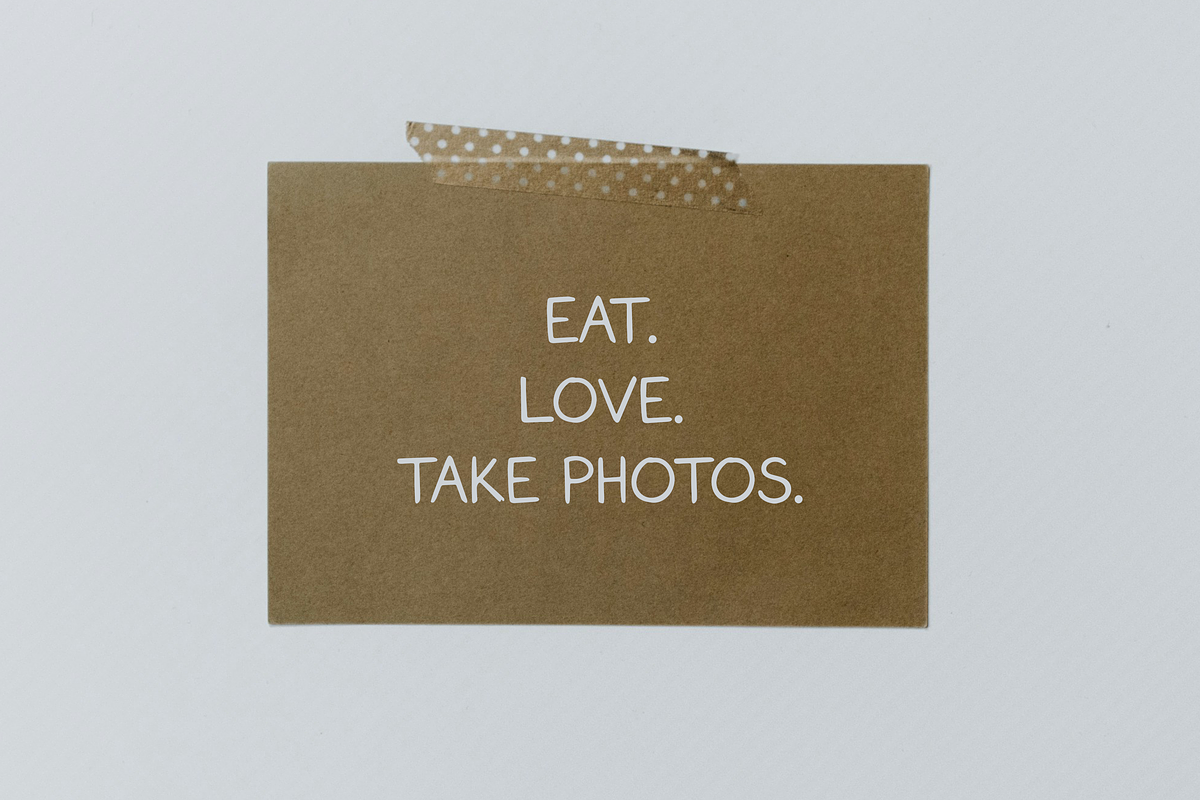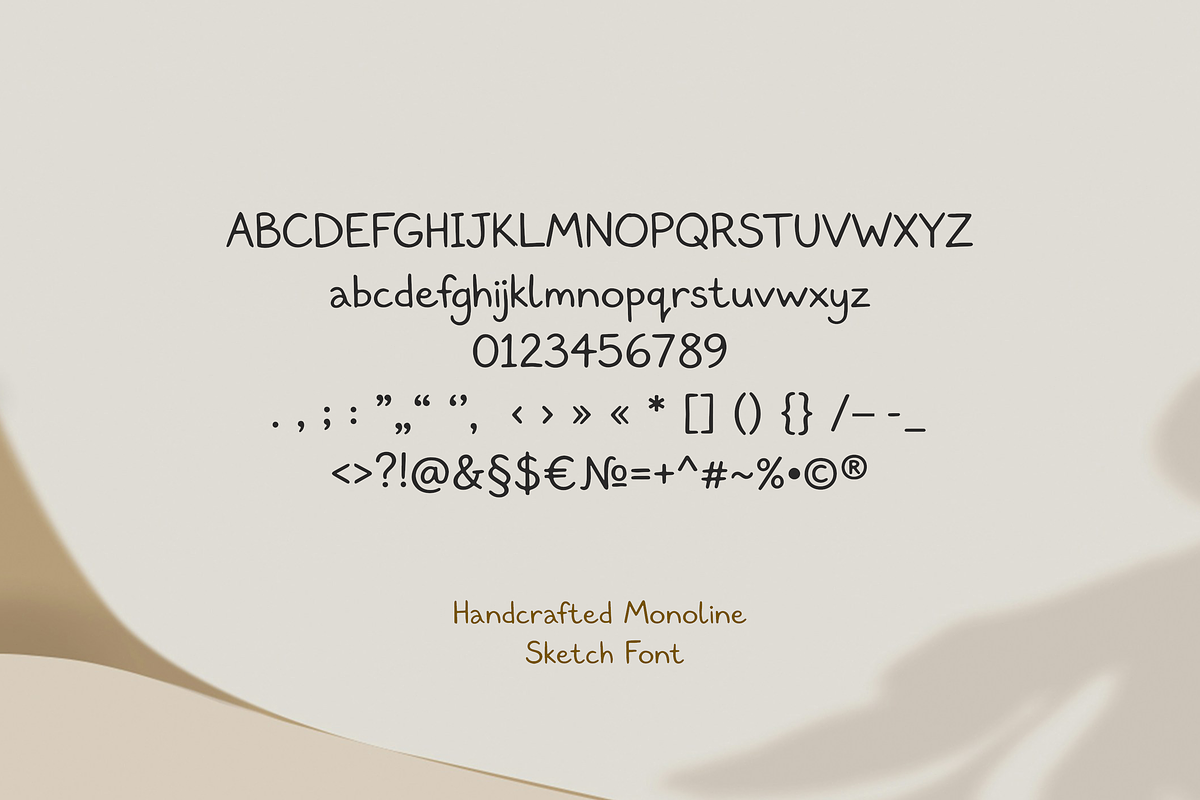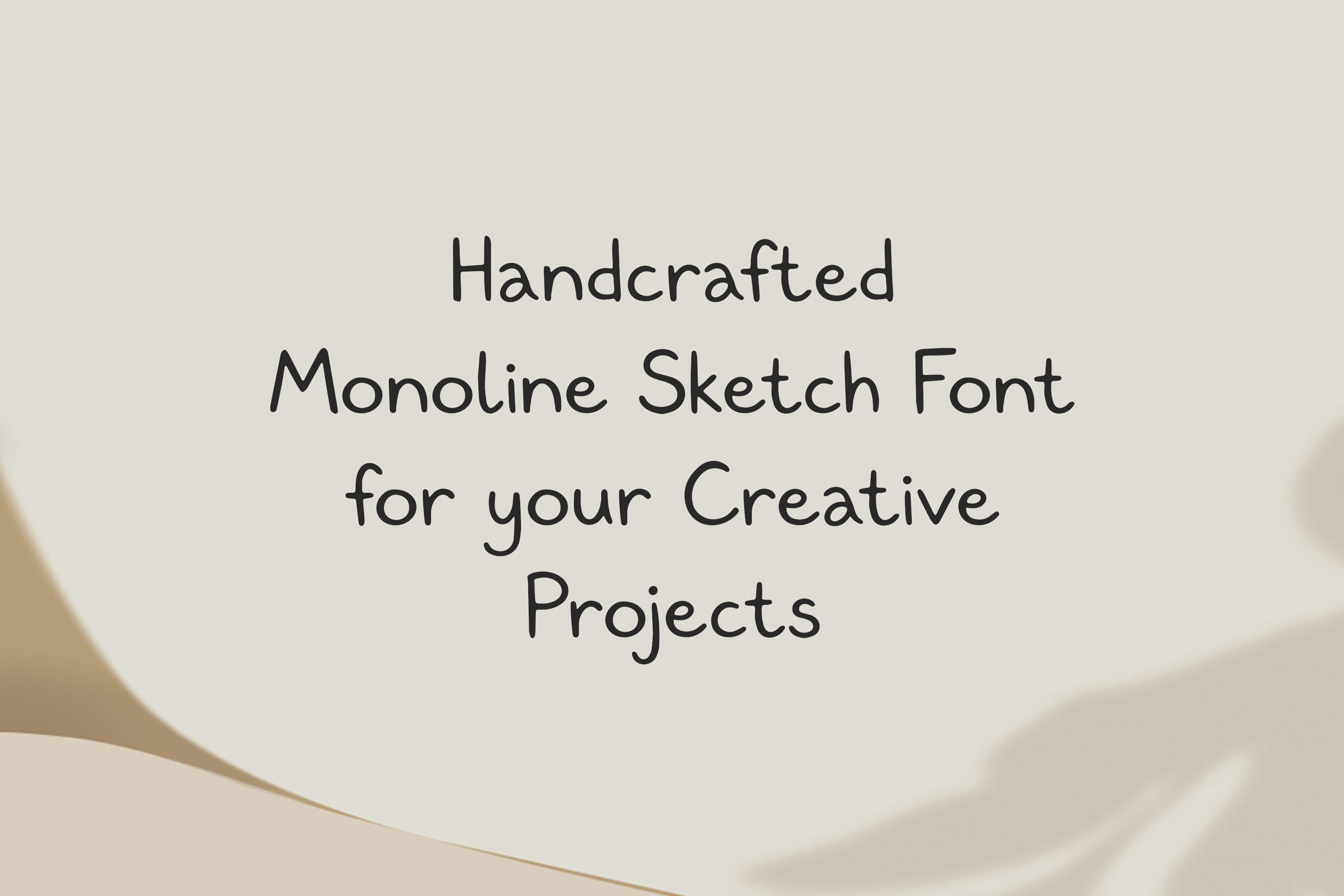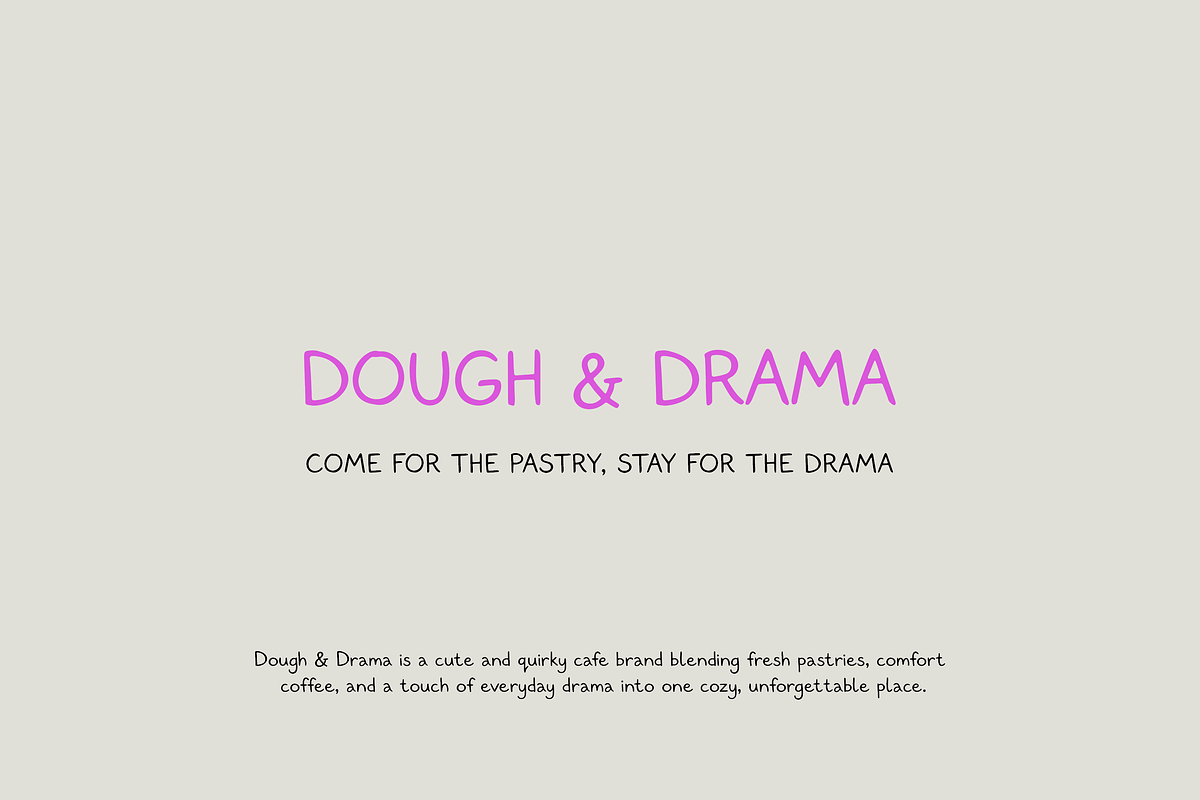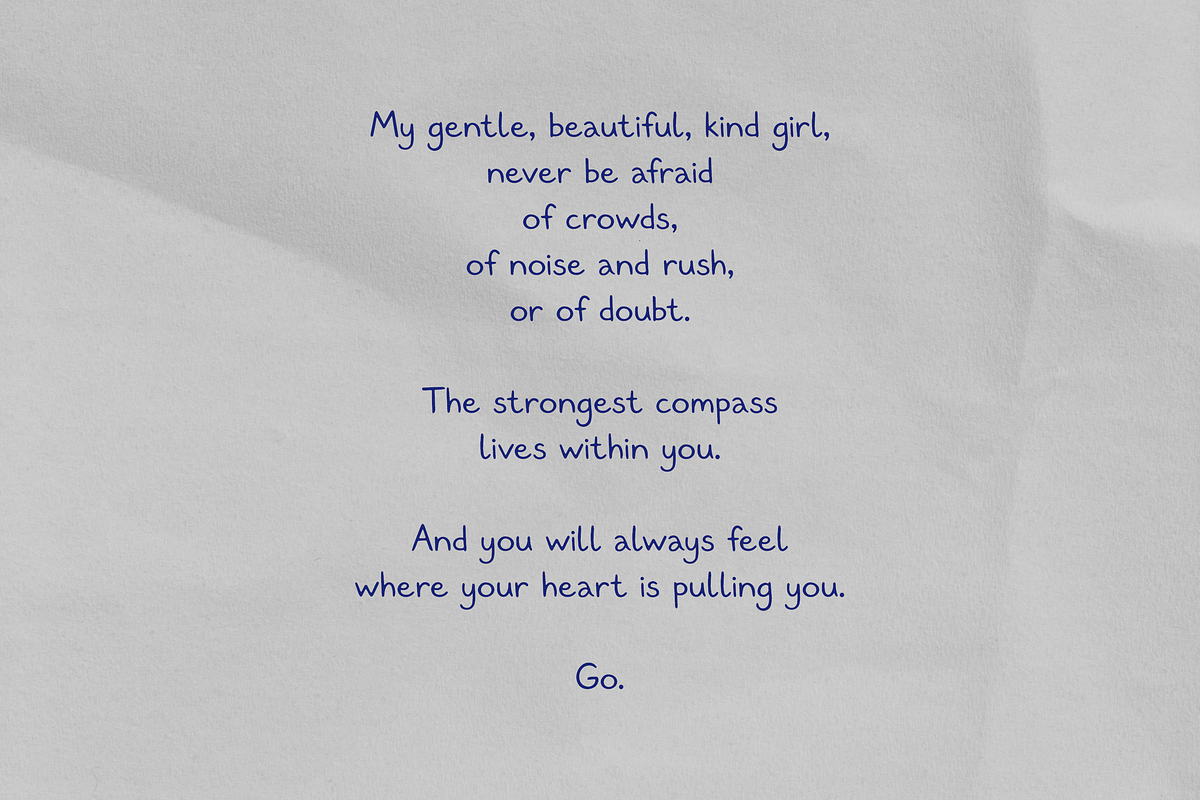
Handcrafted Monoline Sketch Font
A Handcrafted Monoline Sketch Font with a playful handwritten feel, soft irregular lines, and natural imperfect charm. It was created to bring warmth, personality, and a lightly whimsical touch to your designs.
This font is perfect for branding, logos, packaging, quotes, social media, invitations, posters, labels, and creative projects that need an organic handmade look.